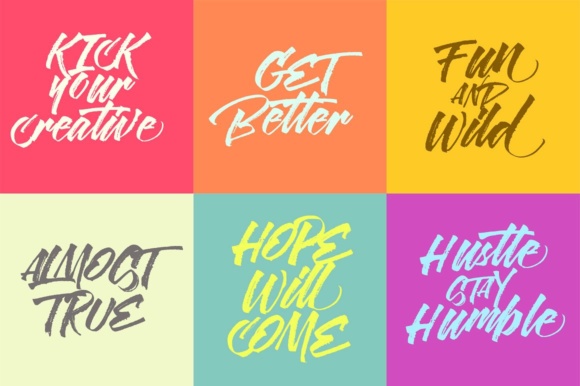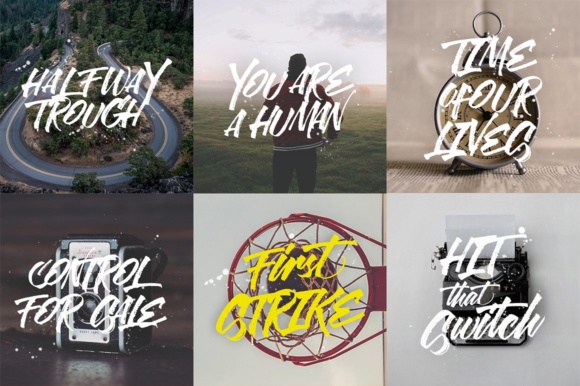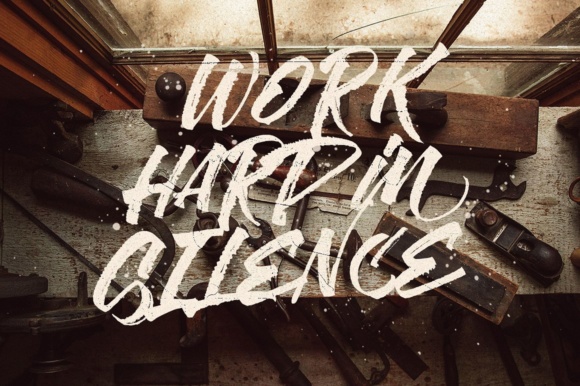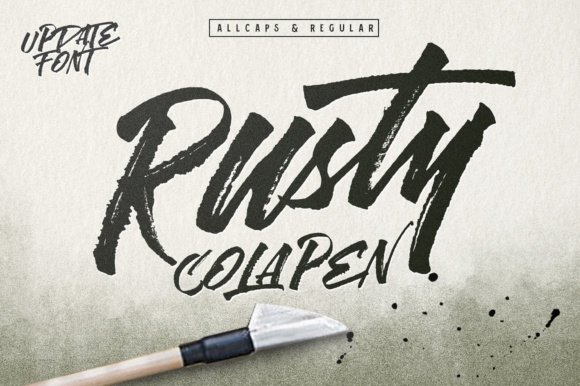
Introduction to Rusty Cola Pen Font
The Rusty Cola Pen is a hand painted typeface.
It was designed to help you create a stunning hand lettered design .
Rusty Cola Pen Font offers exceptional quality and versatility, making it a valuable addition to your design toolkit. Whether you’re creating for personal projects or commercial use, Rusty Cola Pen Font delivers professional results.